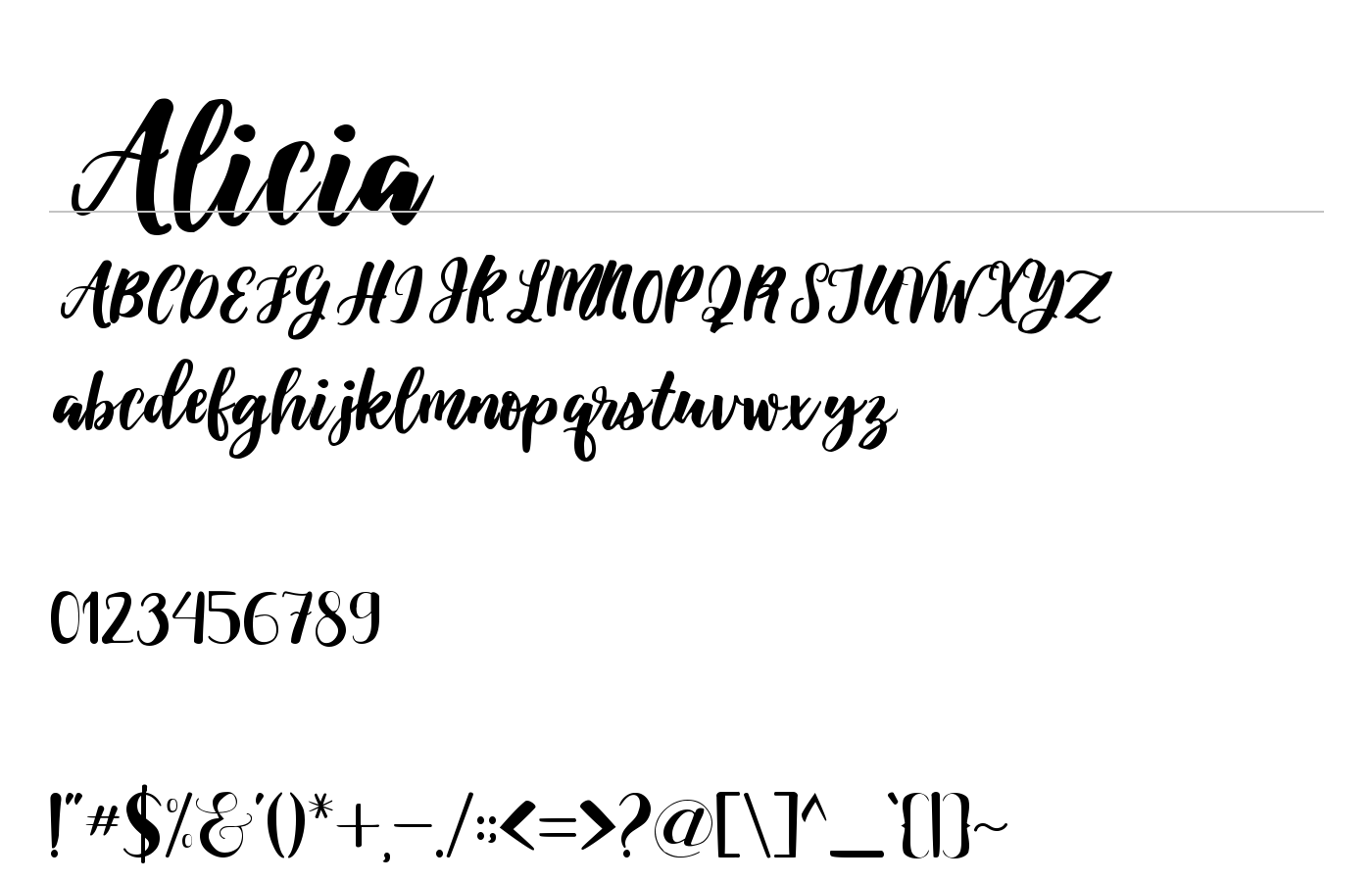
Alicia is a stylish script font with a bold, flowing character that combines elegance with a lively, hand-lettered feel. Its thick, rounded strokes and distinctive swashes make it ideal for adding a personal, creative touch to branding, invitations, and headlines where a graceful yet approachable look is desired. This font excels in designs that need a blend of sophistication and warmth, perfect for fashion, beauty, and artisanal product packaging.
Alicia Font
About Alicia Font